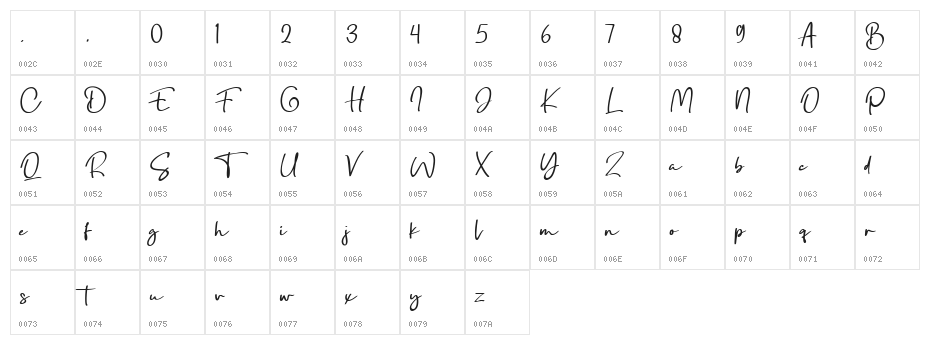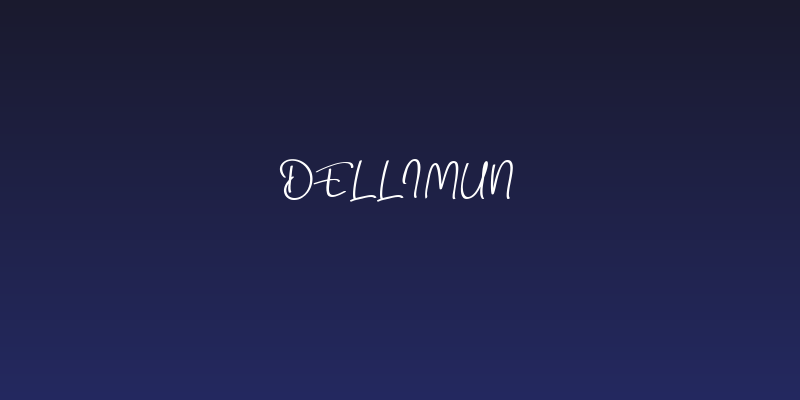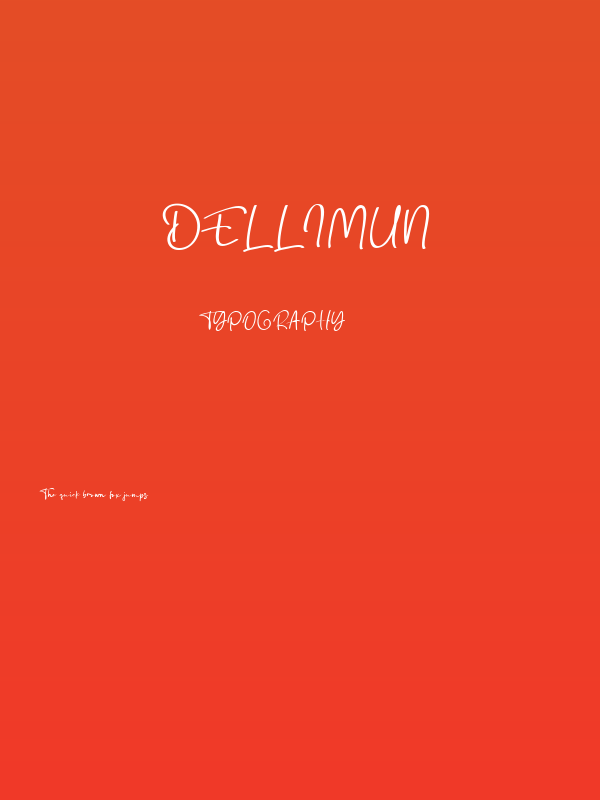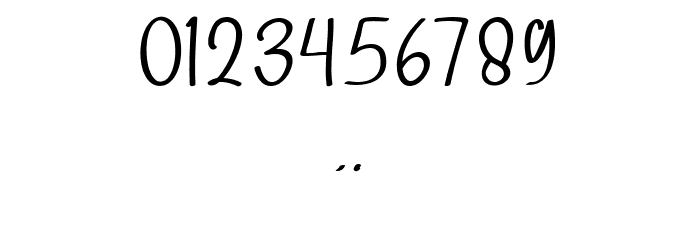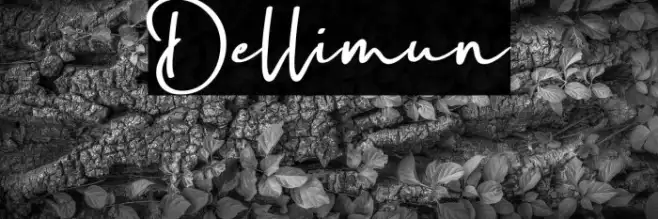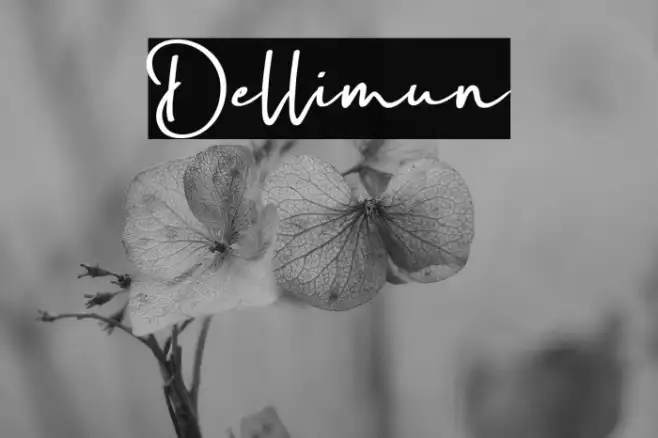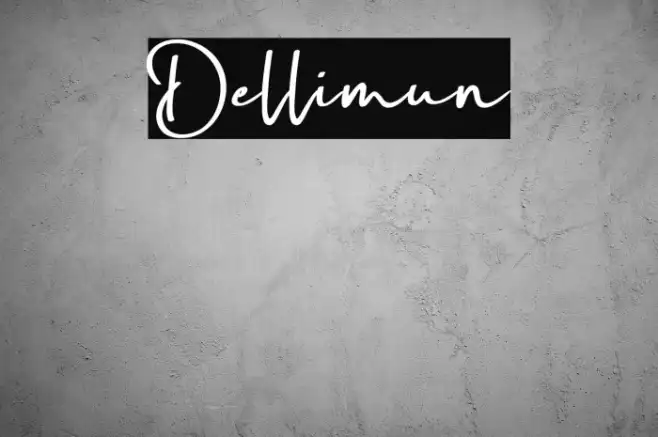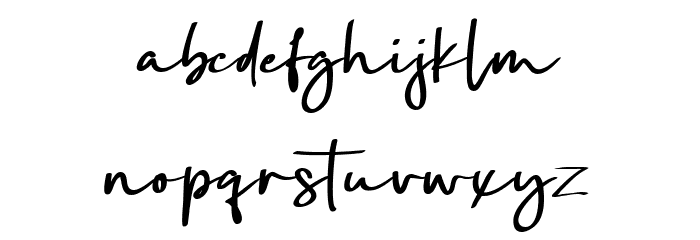
Dellimun Font
Dellimun Description
This font features a lively and flowing script style, characterized by its elegant and fluid strokes. The uppercase letters are bold and expressive, with a playful yet sophisticated flair. The lowercase letters maintain a consistent flow, enhancing the font's overall cohesiveness. The numerals are clear and legible, matching the style of the alphabetic characters. This font's design is perfect for adding a personal touch to any project, with its handwritten appearance providing a sense of warmth and approachability. The special characters are seamlessly integrated, ensuring versatility in various design contexts.